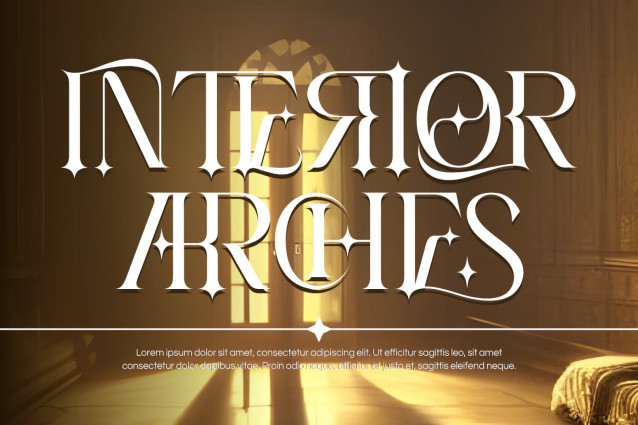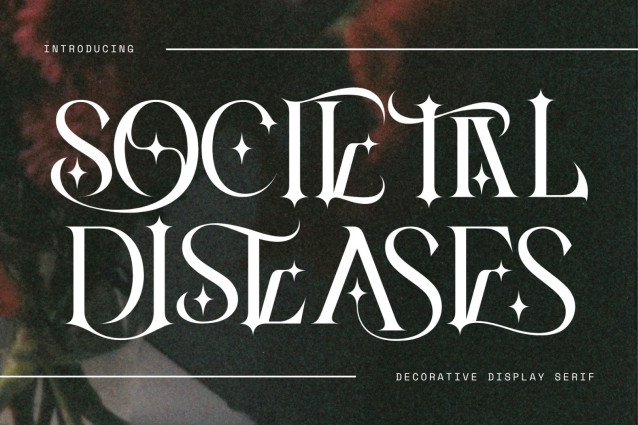
SOCIETAL DISEASES FONT
SOCIETAL DISEASES FONT – Celestial Mystical & Dark Fantasy Display Serif, celestial display serif font designed to infuse your typography with magical romance, dark fantasy allure, and high-fashion sophistication. Harmonizing high-contrast Art Nouveau curves with sharp dagger-like serifs, this typeface is adorned with delicate four-pointed star motifs seamlessly embedded into its character forms.
Every letterform in SOCIETAL DISEASES radiates an enchanted, mystical energy, turning standard titles into custom-crafted artwork. Engineered specifically for commanding visual designs, it is the ultimate choice for dark fantasy book covers, tarot card decks, astrology-inspired branding, luxury cosmetic packaging, gothic fashion editorials, album art, and celestial logos. Elevate your creative vision with the hypnotic charm of SOCIETAL DISEASES.